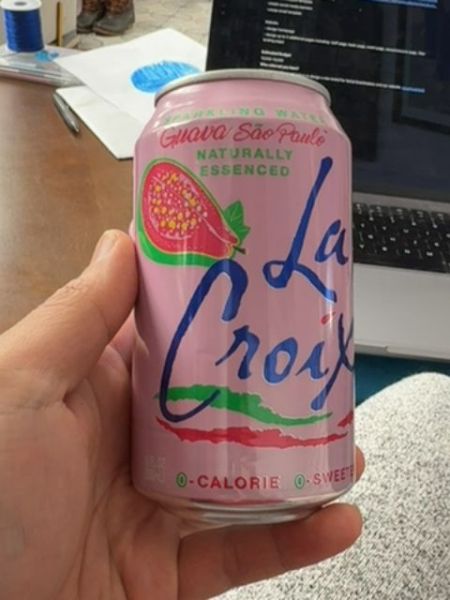
LaCroix Guava São Paulo
A naturally flavored sparkling water with essences of guava.
1981
USA
The typography on the can is fluid and artistic, with the brand name 'LaCroix' displayed in a hand-drawn cursive style that conveys a casual and sophisticated aesthetic. The playful use of varying font weights and curvatures adds a dynamic quality, while the contrasting bold, sans-serif font used for product details enhances readability and emphasis.
The can features a pastel pink background with vibrant illustrations of guava fruit and foliage. The design is lively and colorful, capturing an exotic and refreshing feel that appeals to a modern audience.
- LaCroix is a popular brand of sparkling water in the United States.
- The drink has zero calories and is sweetener-free.
- Guava São Paulo is one of the many unique flavors offered by LaCroix.